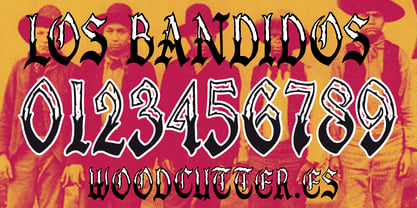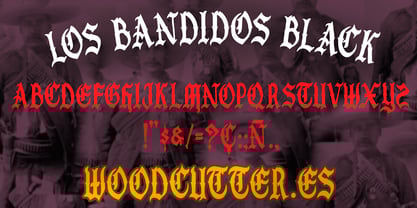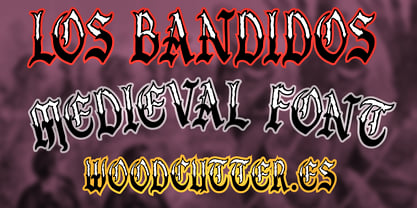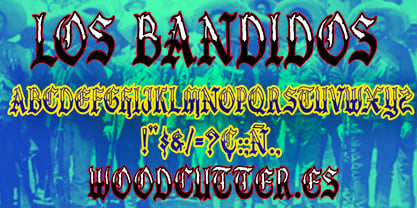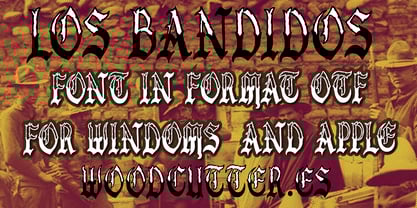
Los Bandidos
by Woodcutter
The Los Bandidos Font Family was designed by Jordi Manero and published by Woodcutter. Los Bandidos contains 2 styles and family package options.
Los Bandidos is an all-caps typeface, rooted in medieval gothic tradition. It brings a bold, commanding presence that evokes ancient manuscripts, warrior banners, and dark legends. Designed to stand out in headlines, covers, or graphic compositions, this typeface carries strong symbolic weight and delivers a visually striking tone.
The font family includes two complementary styles:
Los Bandidos, the main version, features decorated letters with white shadows on the top portion of each character. This subtle touch adds a sense of three-dimensionality and a hint of engraving style, creating visual movement and depth without compromising its gothic essence.
Los Bandidos Black goes all in with solid black lettering—heavier, denser, and ideal for applications that require high contrast and legibility. It’s more direct, aggressive, and perfect for bold statement designs.
Both variants share a medieval spirit, with sharp points, strong vertical strokes, and angular forms reminiscent of carved stone or metal inscriptions. Los Bandidos is made for designers seeking drama, heritage, and a timeless rebellious energy in their visual narratives.